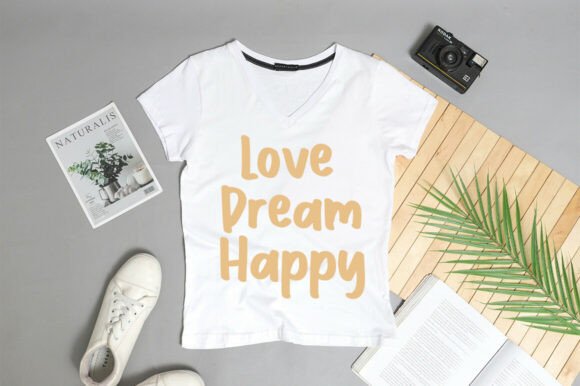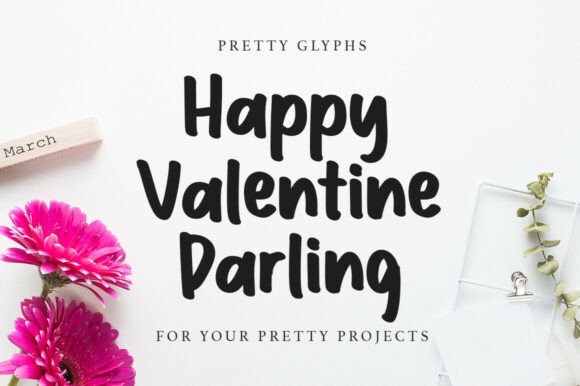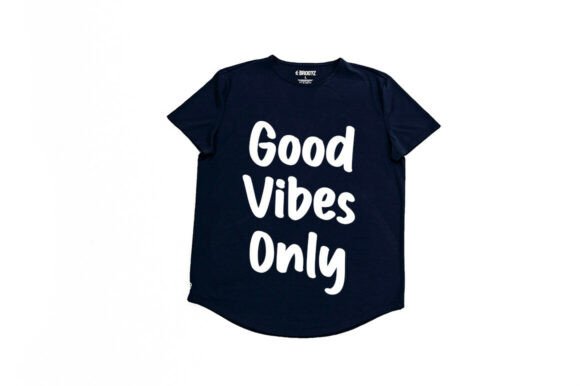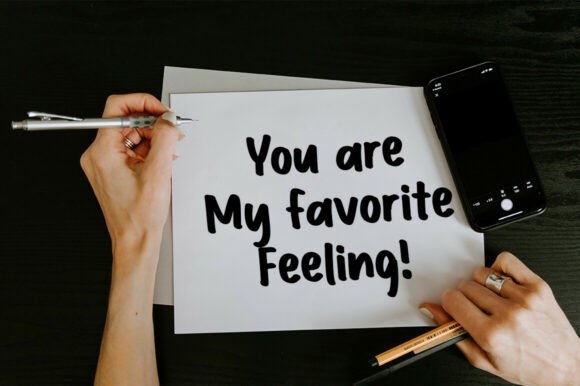
Where Creativity Blooms
Remember that moment when you stumbled upon the perfect font that captured the essence of your brand? The one that effortlessly conveys your unique personality and resonates with your target audience? For designers, this moment is a game-changer. It’s the spark that ignites creativity and sets the tone for a project’s success.
Enter the Bloomkins Font, a bold display typeface that embodies the perfect blend of rustic charm and modern flair. With its hand-drawn-and-hearty soul, this font is designed to evoke a sense of approachability and authenticity. Whether you’re creating labels for independent organic food or crafting social media headers that scream “unique,” Bloomkins Font is the perfect choice.
Bloomkins Font Key Features
- Unique Characteristics: This font features a unique blend of hand-drawn and digital techniques, resulting in a distinctive, whimsical feel that sets it apart from other fonts.
- Kerning and Ligatures: The font includes advanced kerning and ligature pairs, ensuring that text sets are visually appealing and easy to read.
Bloomkins Font Review
Bloomkins Font has some nice features that make it a decent choice for certain projects ✨. The script-like font is perfect for adding a touch of elegance and sophistication to designs. The rounded edges and flowing curves give it a soft, whimsical feel that’s great for branding, invitations, and other creative applications.
- It’s suitable for a variety of contexts, from formal events to children’s products.
- The font is highly customizable, making it easy to adjust the style to fit your design needs.
- It’s available in multiple weights and styles, giving you plenty of options to work with.
However, there are a few limitations to consider ⚠️. The font may not be ideal for projects that require a more modern or edgy feel, as it has a somewhat dated aesthetic. Additionally, the font may not be as legible at smaller font sizes, which could be a concern for certain applications.
Overall, I’d say Bloomkins Font is a solid choice for designers looking for a elegant, script-like font. While it may not be the most versatile option, it’s perfect for projects that require a touch of sophistication and whimsy. Just be sure to test it out thoroughly before committing to a design.
Combine the Bloomkins font with other fonts for a unique look.
Use the font for headings, subheadings, or body text for a consistent design aesthetic.
Bloomkins font is ideal for:
Brand identity and marketing materials
Editorial and publishing projects